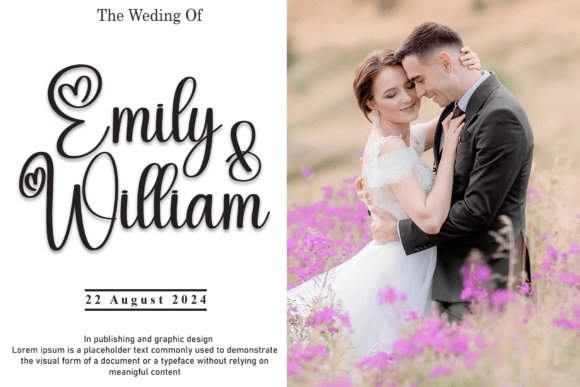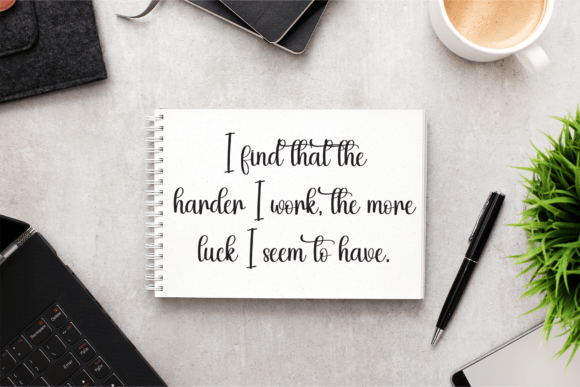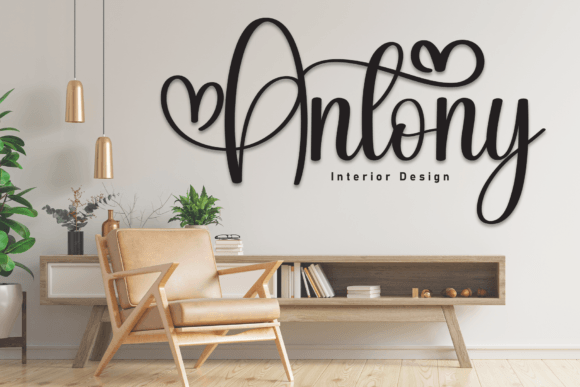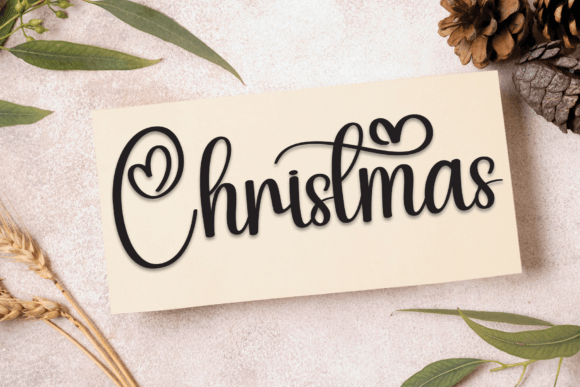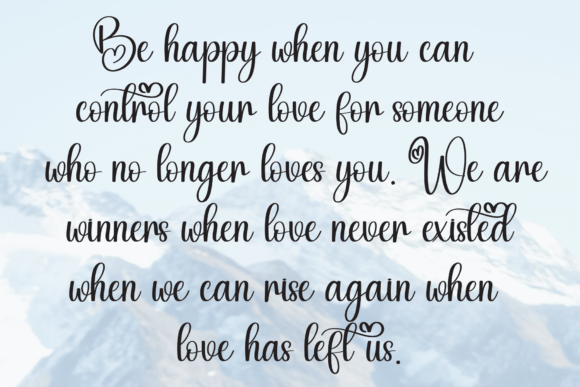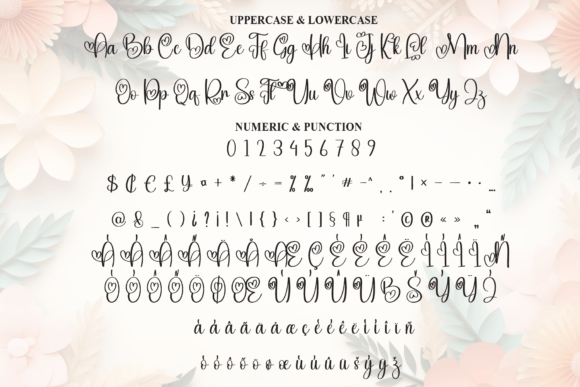
Introducing Caption Font: The Charming Handwritten Font for Personalized Text
Are you looking for a font that adds a personal touch to your text? Do you want to make your notes, invitations, and creative projects stand out from the crowd? Look no further than Caption Font, a charming handwritten font that is sure to delight designers and crafters alike. With its flowing letters and casual style, Caption Font is the perfect choice for anyone looking to add a touch of personality to their text.
The Characteristics of Caption Font
Caption Font is a beautifully designed handwritten font that boasts a range of characteristics that make it perfect for a variety of uses. Some of its key features include:
- Flowing letters: Caption Font features flowing letters that are connected in a way that creates a sense of movement and fluidity. This makes it perfect for creating elegant and sophisticated text.
- Casual style: Despite its elegance, Caption Font has a distinctly casual feel that makes it perfect for use in notes, invitations, and other informal applications.
- Handwritten charm: Caption Font has a charming handwritten quality that adds a personal touch to any text. This makes it perfect for crafters and designers who want to create unique and personalized projects.
Uses for Caption Font
Caption Font is a versatile font that can be used in a wide range of applications. Some of the most popular uses for this font include:
- Notes and journals: Caption Font is perfect for use in notes and journals, where its flowing letters and casual style can add a touch of personality to your writing.
- Invitations: Whether you’re planning a wedding, birthday party, or other special event, Caption Font is a great choice for creating beautiful and elegant invitations.
- Creative projects: Caption Font is a great choice for crafters and designers who want to add a personal touch to their projects. It’s perfect for use in scrapbooking, card making, and other paper crafts.
- Digital design: Caption Font can also be used in digital design, where its elegant and sophisticated style can add a touch of class to websites, social media graphics, and other digital projects.
Tips for Using Caption Font
Caption Font is a charming handwritten font that adds a personal touch to any text. With its flowing letters and casual style, it’s perfect for use in notes, invitations, and creative projects. Whether you’re a designer, crafter, or simply someone who loves to write, Caption Font is a great choice for anyone looking to add a touch of personality to their text. So why not give it a try and see the difference it can make?